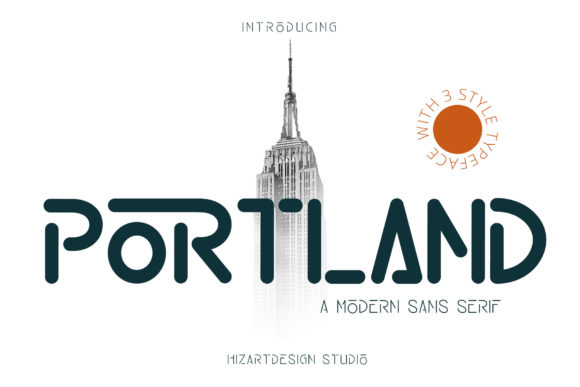
Introducing Portland Font - The Epitome of Modernity
Prepare to be mesmerized by Portland Font, an extraordinary display font that embodies the very essence of modern design. Its meticulously crafted characters exude a sleek sophistication that will elevate your creations to new heights.
Immerse yourself in the world of Portland Font, where every letter is a masterpiece. Its sharp lines and geometric precision create a visual symphony, captivating the eyes with their undeniable allure. Each stroke has been carefully designed to convey a sense of elegance and grandeur, making it the perfect font for projects that demand a touch of sophistication.
Unleash your creativity with Portland Font, the ultimate weapon for designers seeking to make a bold statement. Whether you're crafting breathtaking logos, mesmerizing posters, or captivating website designs, this font will serve as your faithful companion, bringing your visions to life with unparalleled clarity and impact.
But Portland Font's allure extends far beyond its aesthetic beauty. Its versatility knows no bounds, making it an indispensable tool for designers of all disciplines. From branding and marketing materials to packaging and web design, Portland Font seamlessly adapts to any project, adding a touch of modernity and sophistication to every creation.
Join the ranks of discerning designers who have discovered the transformative power of Portland Font. Let its exquisite characters elevate your designs to new heights, captivating your audience with their undeniable charm. Embrace the future of typography with Portland Font, the font that will forever redefine the boundaries of modern design.
Dare to dream, dare to create, and let Portland Font be your guide. Let its sleek lines and geometric precision lead you on a journey of unparalleled creativity, where every design becomes a masterpiece.